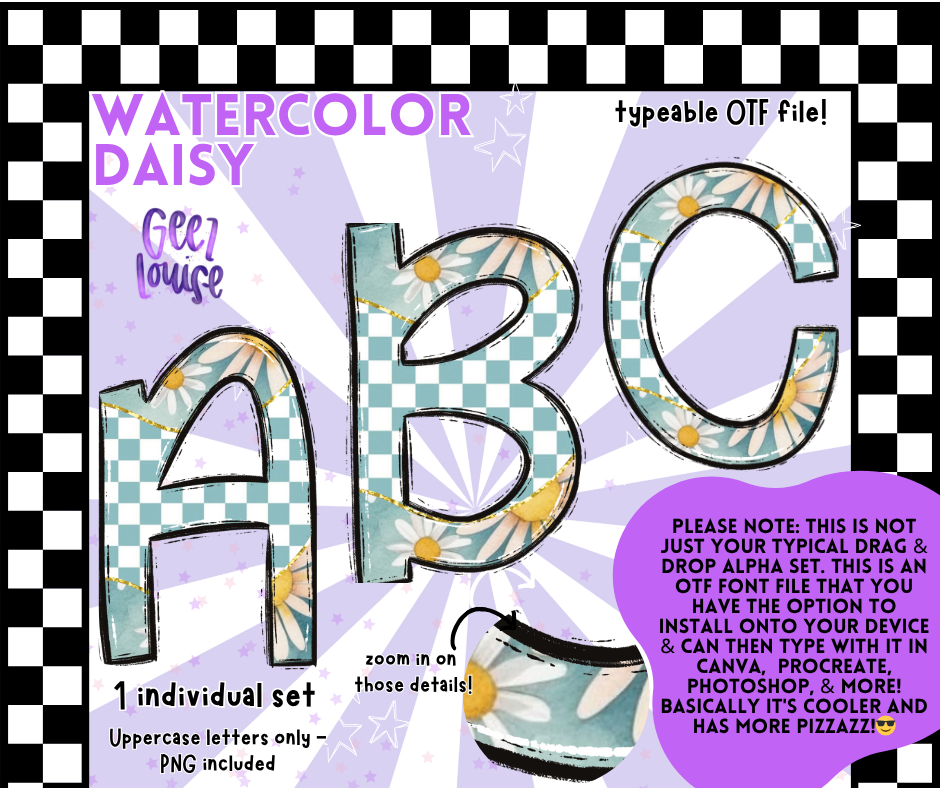
Watercolor Daisy OTF Font + PNG Alpha Set
Bring the sunshine to your designs with Watercolor Daisy — a dreamy alpha set featuring soft watercolor daisies, pastel blues, and a retro checkerboard pattern that’s equal parts vintage and fresh.
🌼 Uppercase letters only
🌼 Clean watercolor texture with just a touch of whimsy
Perfect for springtime projects, flower child vibes, or uplifting everyday designs that need a little extra cheer.